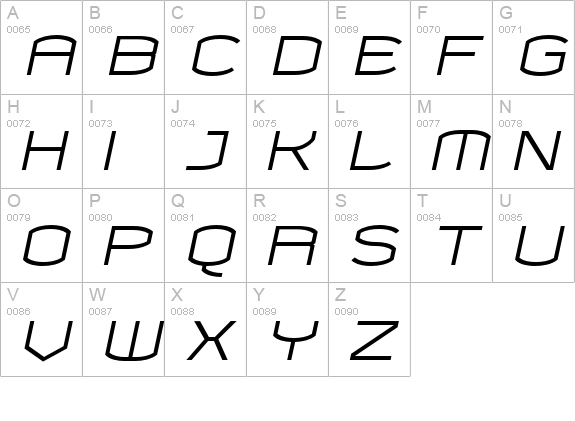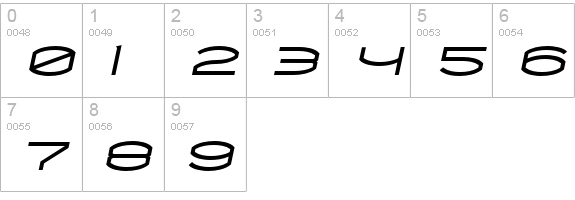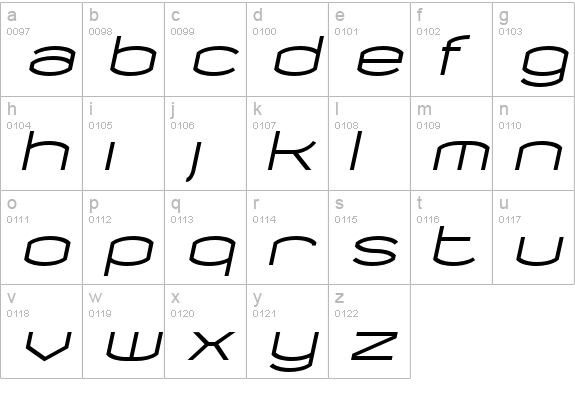
Chord-BoldItalic is a stylish and modern font that exudes elegance and sophistication. Its bold yet slanted design adds a touch of flair to any project, making it perfect for headers, logos, and other eye-catching elements. The italicized characters give a sense of movement and dynamism, making your text stand out from the crowd. Chord-BoldItalic is a versatile typeface that can be used in a variety of design applications, from print to digital. The best part? Chord-BoldItalic is available for free download at FontsMarket.com, making it accessible to everyone looking to elevate their design projects with a touch of class and style. Don't miss out on this opportunity to add a unique and striking font to your collection - download Chord-BoldItalic today and let your creativity soar!